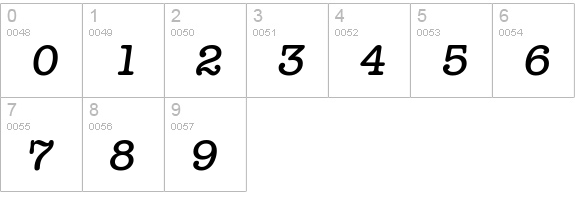
TypewriterSerial-Medium-Italic is a balanced, medium-weight, italic variant in the TypewriterSerial typeface family \xE2\x80\x94 well suited to sub-headlines, navigation, and balanced editorial work.
TypewriterSerial-Medium-Italic font exudes a timeless charm with its classic typewriter-inspired design. The medium weight and italic style make it perfect for adding a touch of sophistication to any project. The distinctive characters and slightly slanted appearance give this font a unique personality that stands out from the crowd. What's even better is that TypewriterSerial-Medium-Italic font is available for free download at FontsMarket.com! Whether you're working on a project that requires a vintage touch or simply want to add a touch of elegance to your design, this font is a versatile choice that won't disappoint. Download it now and elevate your typography game with this stylish and freely accessible font.